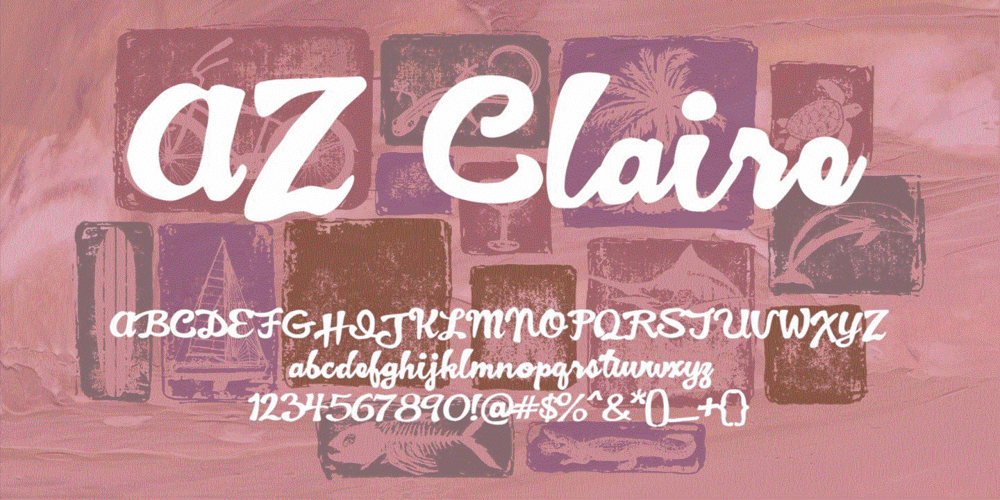
AZ Claire Font Family was designed by published by Artist of Design. AZ Claire contains 1 styles and family package options. AZ Claire was inspired by hand scripts, but with the necessity for a bolder look. This font was designed for use as a fun bold headline.